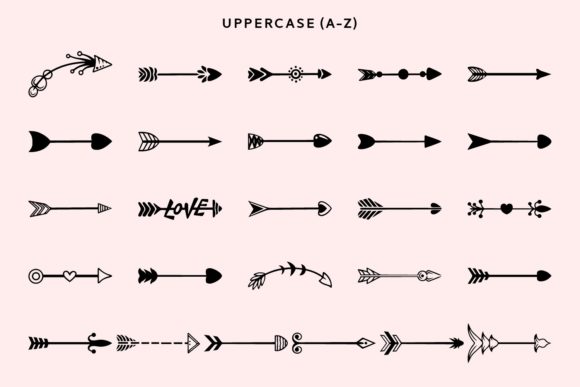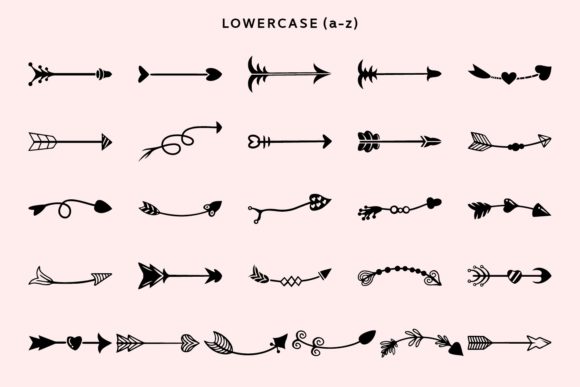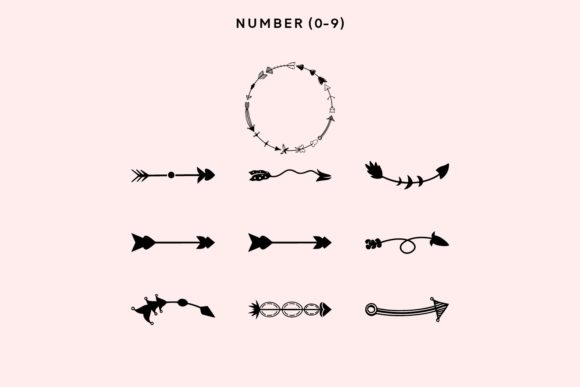
Introducing Arrow Love Shots Font: The Perfect Addition to Your Font Library for Valentine’s Day and Beyond
Are you tired of using the same old fonts for your Valentine’s Day designs? Look no further! Arrow Love Shots Font is a fun and unique dingbat font that is sure to add a touch of love and whimsy to your projects. This adorable font features heart details and is perfect for designers and crafters looking to create special designs for Valentine’s Day and beyond.
What is Arrow Love Shots Font?
Arrow Love Shots Font is a dingbat font that replaces each alphabetical character and numeral with a unique arrow design. The font is carefully crafted to add a playful and romantic touch to your designs. Whether you’re creating Valentine’s Day cards, gifts, or social media posts, this font is sure to make your designs stand out.
Key Features of Arrow Love Shots Font
- Unique Arrow Designs: Each alphabetical character and numeral represents a unique arrow design, making it perfect for creating custom designs.
- Heart Details: The font features heart details, adding a touch of love and romance to your designs.
- Fun and Playful: The font has a fun and playful vibe, making it perfect for creating designs that are lighthearted and whimsical.
- Perfect for Valentine’s Day: The font is specifically designed with Valentine’s Day in mind, but it’s also versatile enough to be used for other projects throughout the year.
Ideas for Using Arrow Love Shots Font
Here are a few ideas for using Arrow Love Shots Font:
- Valentine’s Day Cards: Create custom Valentine’s Day cards with unique arrow designs.
- Social Media Posts: Add a touch of love and whimsy to your social media posts with this fun font.
- Gifts: Use the font to create custom gift tags, wrapping paper, or other gift embellishments.
- Stationery: Add the font to your stationery designs, such as notebooks, journals, or planners.
Tips for Getting the Most Out of Arrow Love Shots Font
Here are a few tips for getting the most out of Arrow Love Shots Font:
- Experiment with Colors: Try pairing the font with different colors to create unique and eye-catching designs.
- Mix and Match: Combine the font with other fonts or design elements to create interesting and layered designs.
- Use it in Combination with Images: Pair the font with images or illustrations to add an extra layer of meaning to your designs.
Arrow Love Shots Font is a fun and unique dingbat font that is sure to add a touch of love and whimsy to your designs. With its heart details and unique arrow designs, it’s the perfect addition to your font library for Valentine’s Day and beyond. Whether you’re a designer or crafter, this font is sure to inspire you to create something special.